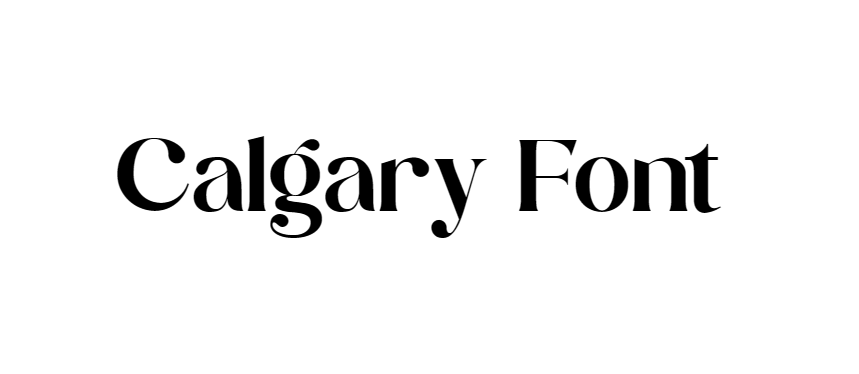
Calgary
Calgary is a serif font made by Pentagonistudio (2022). Small strokes at the ends of its letters (the serifs) give it a classic, trustworthy look. It's a free download, and you can try it with your own text in the preview above first.
Calgary has the full alphabet in upper and lowercase. There are no numbers, so you'll need a second font for dates, prices or phone numbers. Punctuation is limited, so look at the character map if you need a specific symbol. It doesn't include accented letters such as é or ñ, which makes it an English-only font.
Calgary is a natural fit for book covers, magazine headlines and classic branding. Serif fonts shine in headlines and printed text. For long paragraphs on phones, check that it still reads well at small sizes.
No. Calgary has no accented letters such as é, ñ or ü, so it's best for English text.
No. Calgary has no numbers, so pair it with another font for dates, prices or phone numbers.